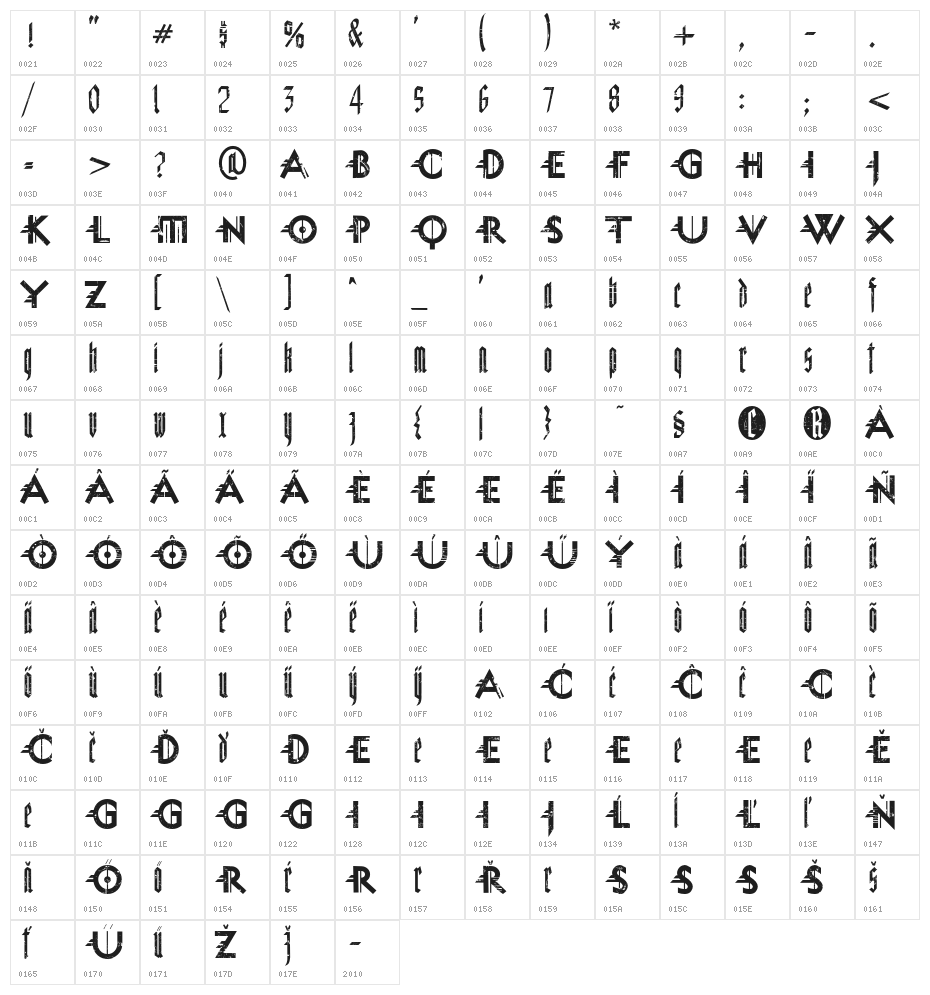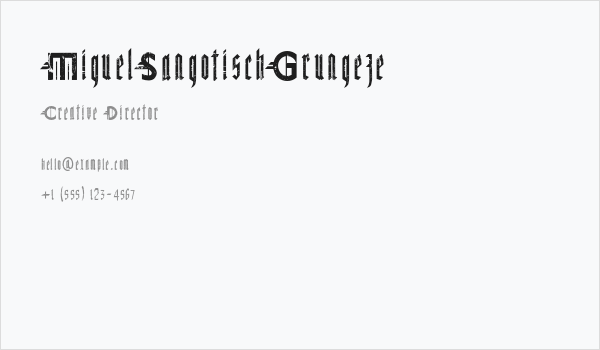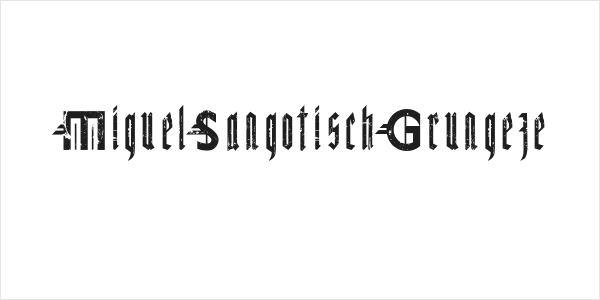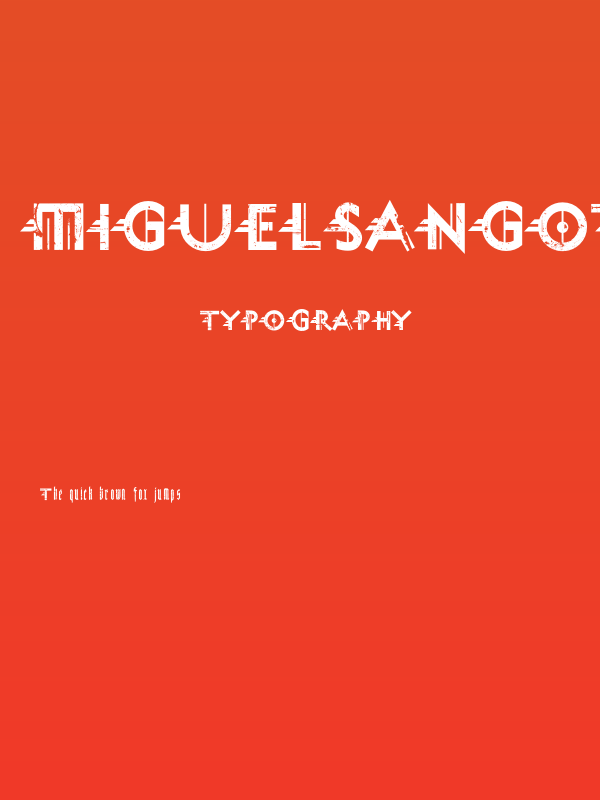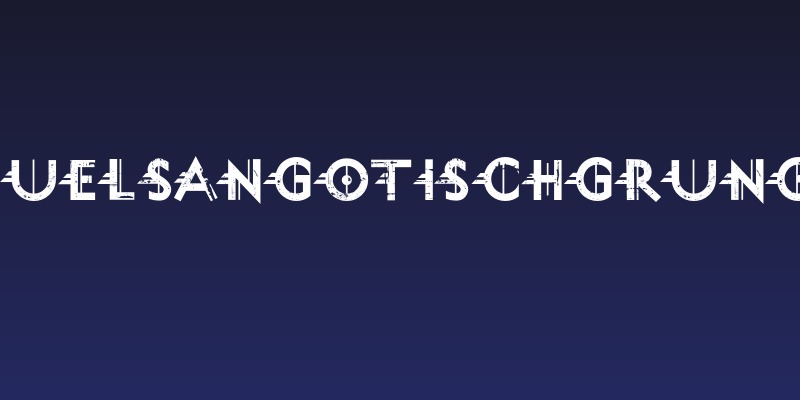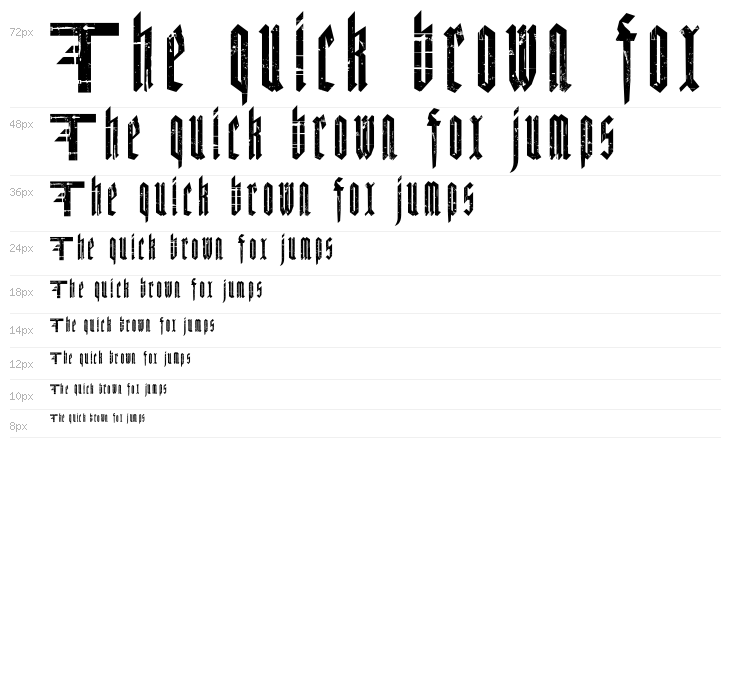
MiguelSangotischGrungeze Font
MiguelSangotischGrungeze Description
This font exudes a rugged, distressed aesthetic with a grunge-inspired design. The characters are bold and heavily stylized, featuring rough edges and a worn texture that gives them a unique, edgy appearance. The uppercase and lowercase letters maintain a consistent style, with angular lines and sharp serifs that contribute to the font's aggressive look. Numbers and special characters follow the same design principles, ensuring a cohesive appearance across all glyphs. This font is ideal for projects that require a bold statement or a gritty, urban feel.
| Overall Style | Grunge, Urban, Edgy |
| Proposed Projects | Album covers, posters, streetwear branding, skateboarding graphics, and urban-themed designs. |